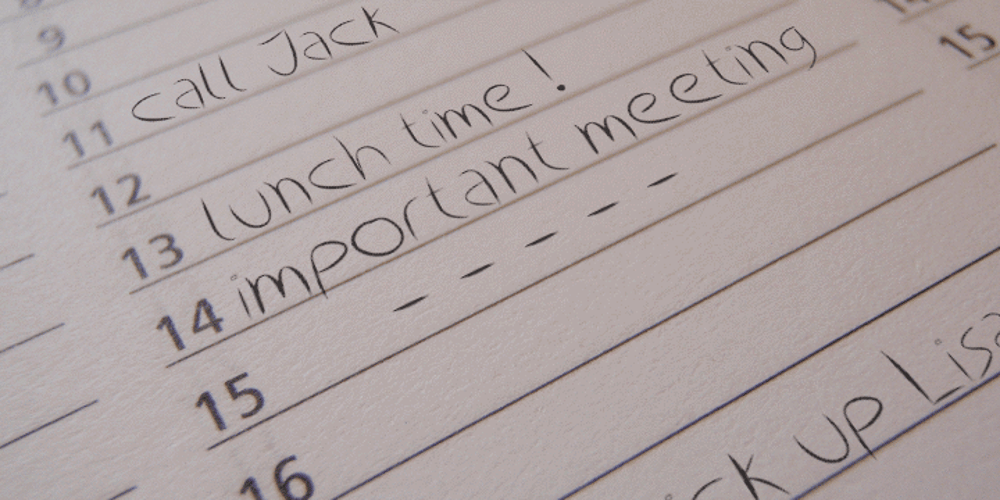
Autumn Leaves Font Family was designed by Matthias Luh and published by Matthias Luh. Autumn Leaves contains 1 styles and family package options. These modern, handwritten letters can be used for fancy headings or images. The characters aren’t oriented straight or orderly, but a bit random. So they look like they were written by a human.